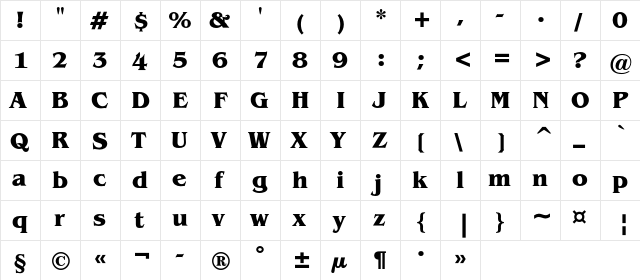
BeneficeHeavyAP Regular
Design Context for BeneficeHeavyAP Typeface
BeneficeHeavyAP takes a measured approach to typography — its balanced proportions and neutral character make it a reliable workhorse for both digital and print work.